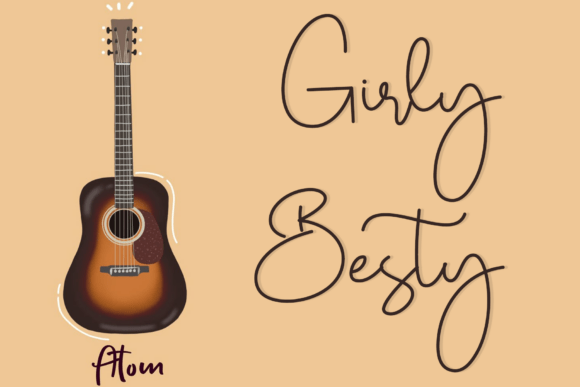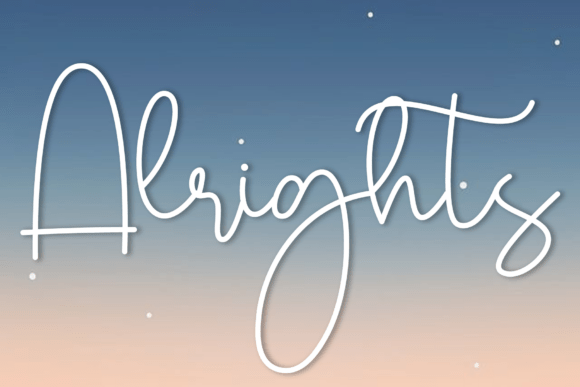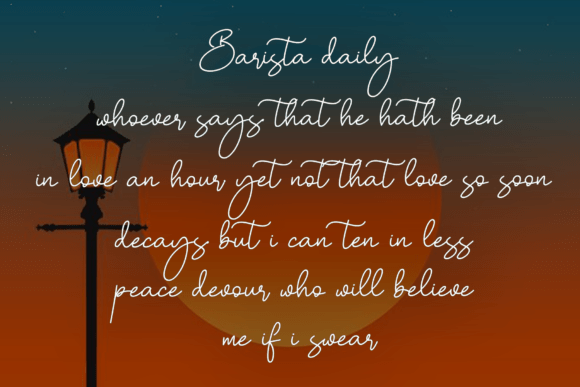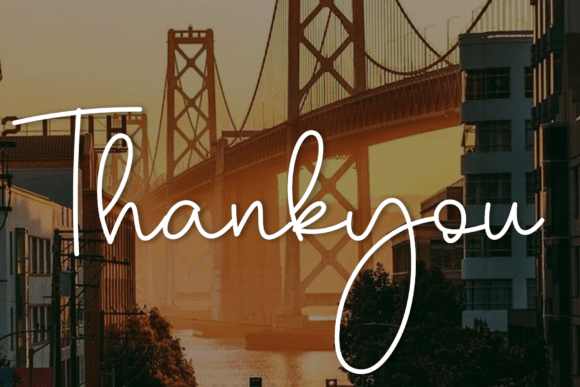
Introducing Breaks Font: A Timeless Handwritten Treasure
In the world of typography, few fonts manage to capture the essence of elegance and charm as effectively as Breaks Font. This lovely and timeless handwritten font has been making waves among designers and crafters alike, and for good reason. With its unique and beautiful touch, Breaks Font is the perfect choice for creating eye-catching logos, branding, and quotes that truly stand out.
The Characteristics of Breaks Font
So, what sets Breaks Font apart from other fonts in the market? For starters, its handwritten nature gives it a personal and organic feel that is hard to replicate with more traditional fonts. Every letter in Breaks Font has been carefully crafted to have a distinct character, making it perfect for designs that require a touch of personality and flair.
One of the most striking features of Breaks Font is its timeless quality. Unlike some fonts that may feel dated or trendy, Breaks Font has a classic appeal that will never go out of style. Whether you’re designing a logo for a new business or creating a set of inspirational quotes, Breaks Font is a versatile choice that will continue to look great for years to come.
Uses for Breaks Font
Breaks Font is an incredibly versatile font that can be used in a wide range of design applications. Here are just a few ideas to get you started:
- Logo Design: With its unique and memorable characters, Breaks Font is an excellent choice for creating logos that stand out from the crowd. Whether you’re designing a logo for a new business or rebranding an existing one, Breaks Font is sure to make a lasting impression.
- Branding: Consistency is key when it comes to branding, and Breaks Font can help you achieve a cohesive look across all your marketing materials. From business cards to billboards, Breaks Font is a great choice for creating a strong and recognizable brand identity.
- Quotes and Inspirational Messages: Breaks Font is also perfect for creating inspirational quotes and messages that will resonate with your audience. Whether you’re designing a social media graphic or a print poster, Breaks Font adds a touch of elegance and sophistication to any message.
Why Designers and Crafters Love Breaks Font
So, why have designers and crafters fallen in love with Breaks Font? For one, its unique and beautiful touch adds a level of personality to any design that is hard to achieve with more traditional fonts. Additionally, its versatility and timeless quality make it a great choice for a wide range of design applications.
But perhaps the biggest reason designers and crafters love Breaks Font is its ability to evoke emotions and create connections. With its handwritten nature and classic appeal, Breaks Font has a way of making designs feel more personal and relatable. Whether you’re designing for a client or working on a personal project, Breaks Font is a great choice for creating designs that truly resonate.
Tips for Using Breaks Font Effectively
While Breaks Font is a beautiful and versatile font, there are a few things to keep in mind when using it in your designs:
- Keep it Simple: While Breaks Font is a decorative font, it’s still possible to overdo it. Keep your design simple and focused, and let the font speak for itself.
- Experiment with Colors: Breaks Font looks great in a wide range of colors, so don’t be afraid to experiment and find the perfect hue for your design.
- Mix and Match: Breaks Font pairs well with a variety of other fonts, so don’t be afraid to mix and match to create a unique and interesting design.
In conclusion, Breaks Font is a truly special font that offers a unique and beautiful touch to any design. With its timeless quality, versatility, and emotional resonance, it’s no wonder designers and crafters are falling in love with this lovely handwritten font. Whether you’re creating logos, branding, or inspirational quotes, Breaks Font is an excellent choice that is sure to make your design come alive!